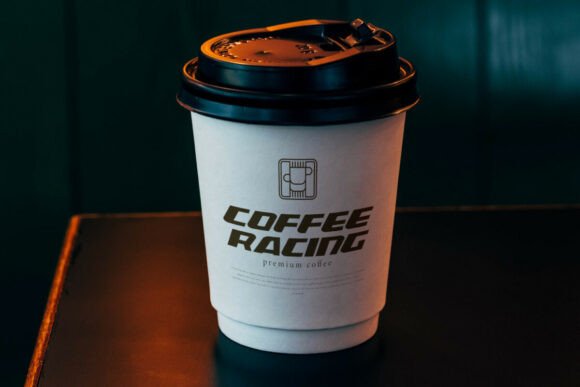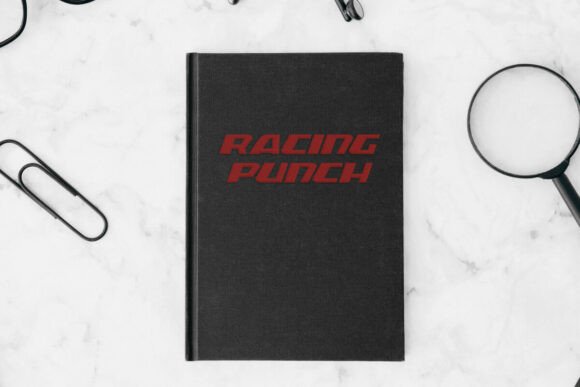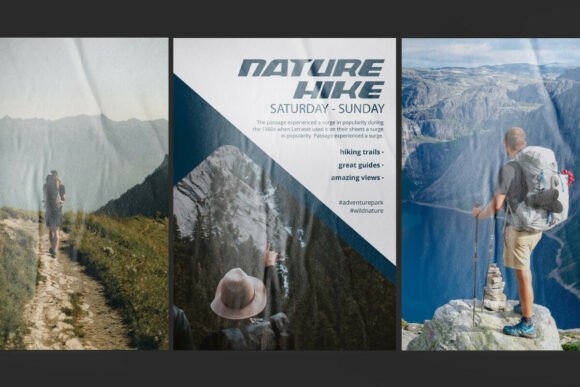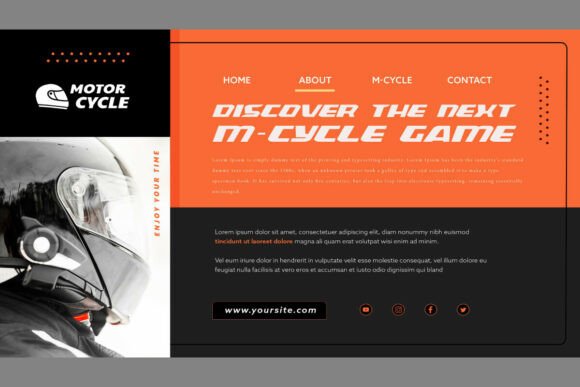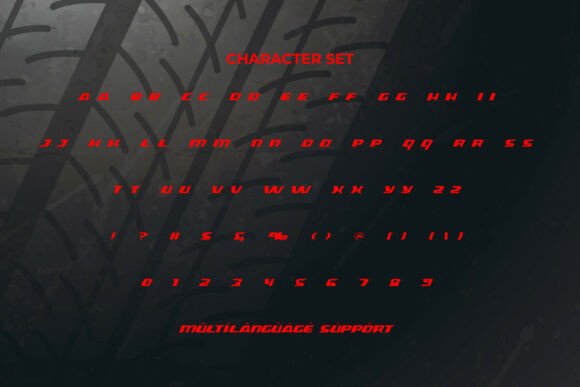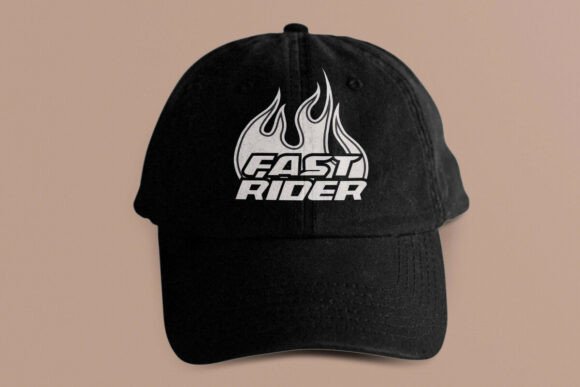
Introduction to Racing Punch Font
Have you ever stared at a blank canvas, trying to conjure the perfect visual representation of speed and power? The rush of adrenaline as you brainstorm ideas is a familiar feeling for designers, but it’s that moment of clarity that makes all the difference. For many creatives, the key to unlocking their vision lies in the right design resource – and for those looking to capture the essence of high-octane action, Racing Punch Font is the ultimate game-changer.
As a bold, high-octane display font, Racing Punch Font is built for speed and impact. Its sharp angles, dynamic slants, and strong geometric form make it a high-quality design resource that’s perfect for motorsports branding, automotive designs, sports titles, and adrenaline-fueled graphics. Whether you’re working on a creative project or simply looking for a free download to add some excitement to your design, Racing Punch Font is a valuable asset that’s sure to deliver.
Racing Punch Font
- Unique blend of bold and playful styles, ideal for creative projects requiring a distinctive design resource.
Honest Review: Racing Punch Font
I recently came across the Racing Punch Font and was excited to see if it would be a valuable addition to my design resources. After giving it a try, I’m here to share my honest thoughts on this font.
- High-quality design: The Racing Punch Font has a unique and eye-catching design that would be perfect for a creative project requiring a bold, energetic feel.
- Limited use cases: While the font is perfect for energetic designs, it might not be suitable for more formal or professional projects.
- Lack of flexibility: The font’s bold, playful design might limit its use in more subtle or minimalist designs.
Overall, I think the Racing Punch Font is a great resource for designers looking for a bold, high-quality font for their creative projects. However, it’s essential to consider the limitations and use cases before adding it to your design arsenal.
Tips for Getting the Most Out of the Racing Punch Font
To get the most out of the Racing Punch Font, use it in combination with other design resources to create unique and eye-catching designs. Experiment with different font sizes, colors, and arrangements to find the perfect look for your project.
Common Use Cases for the Racing Punch Font
The Racing Punch Font is commonly used in a variety of creative projects, including logos, posters, and social media graphics. Its high-quality design and transparent background make it a popular choice for designers looking to add a touch of style to their work.